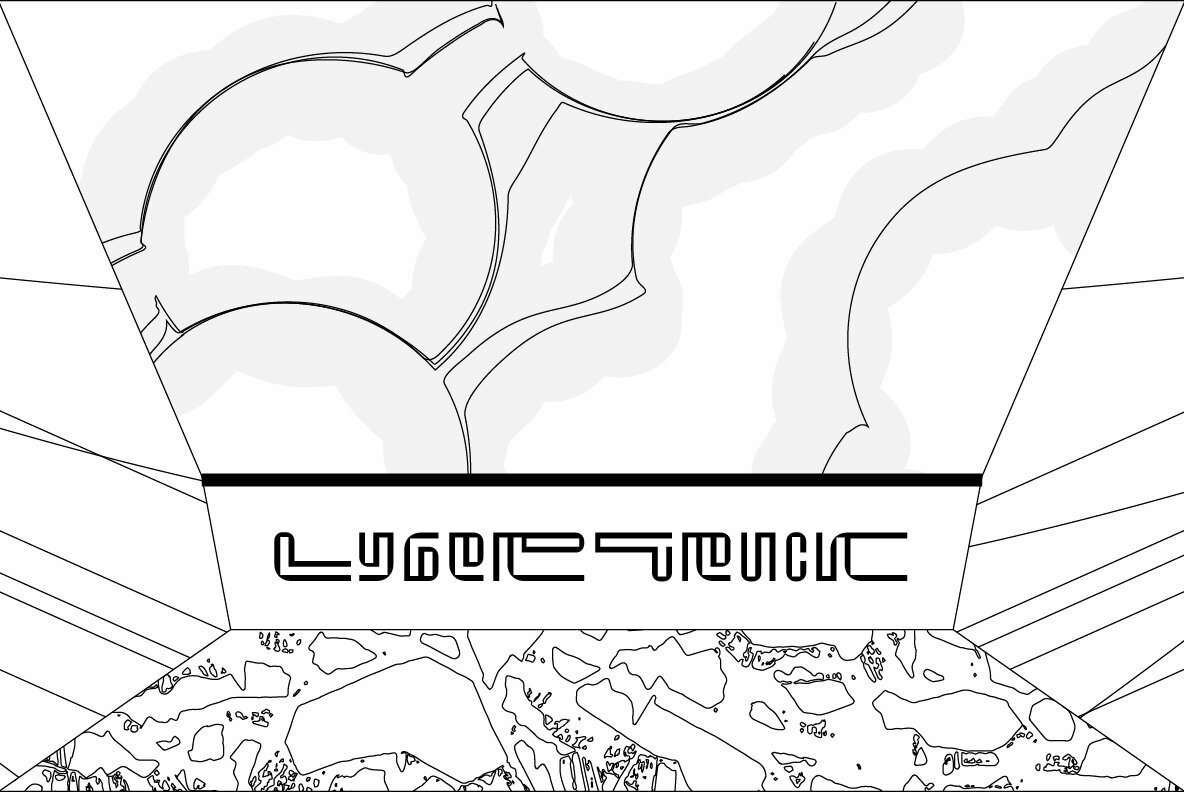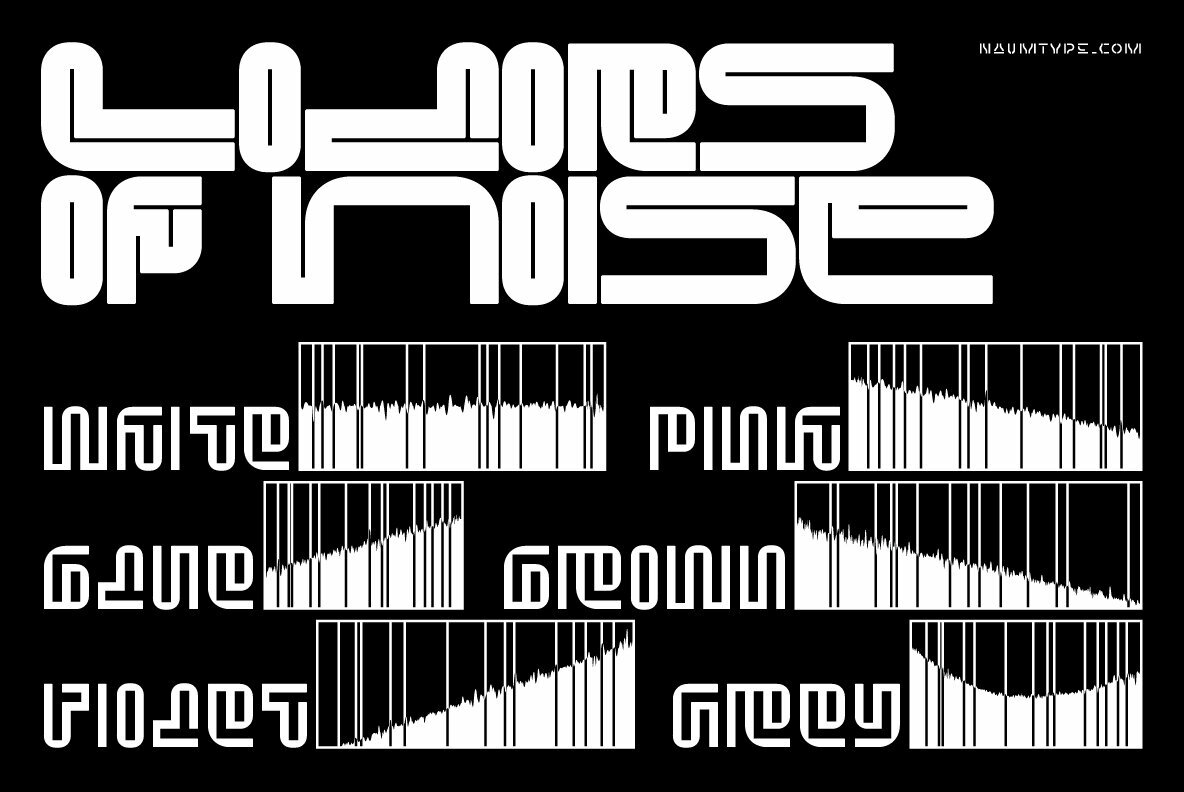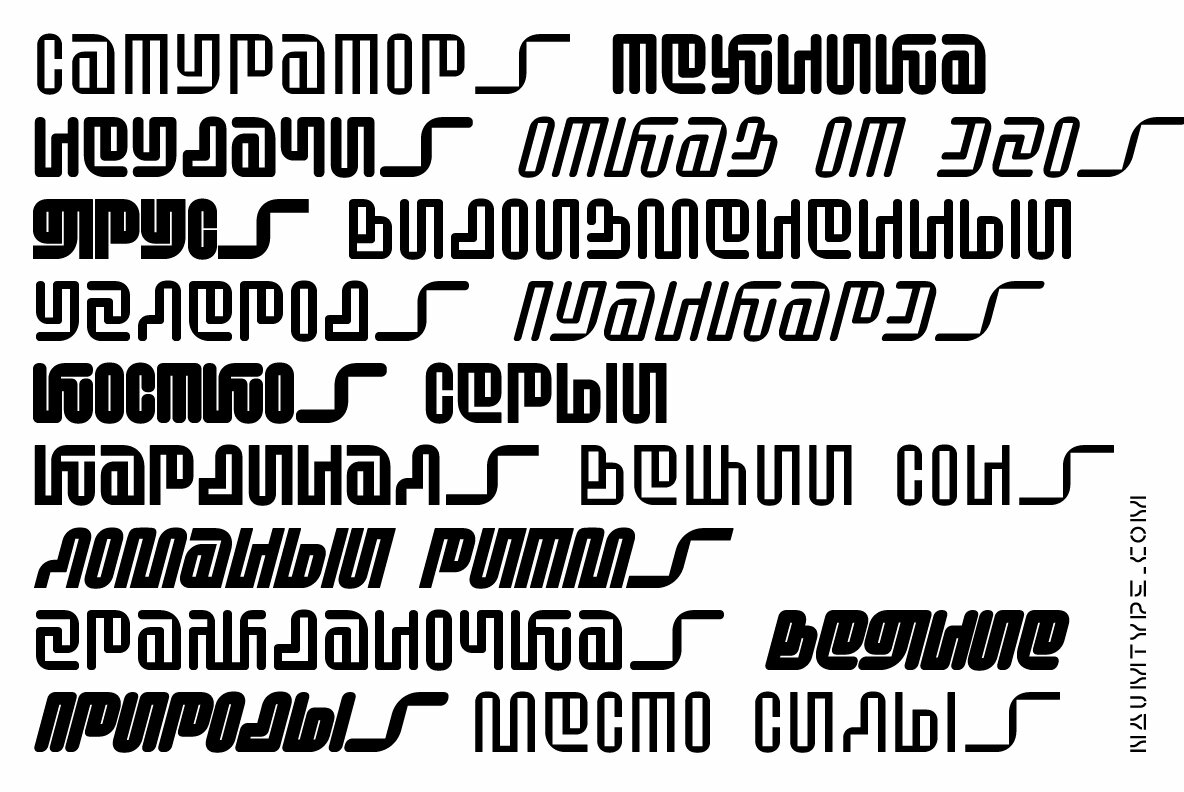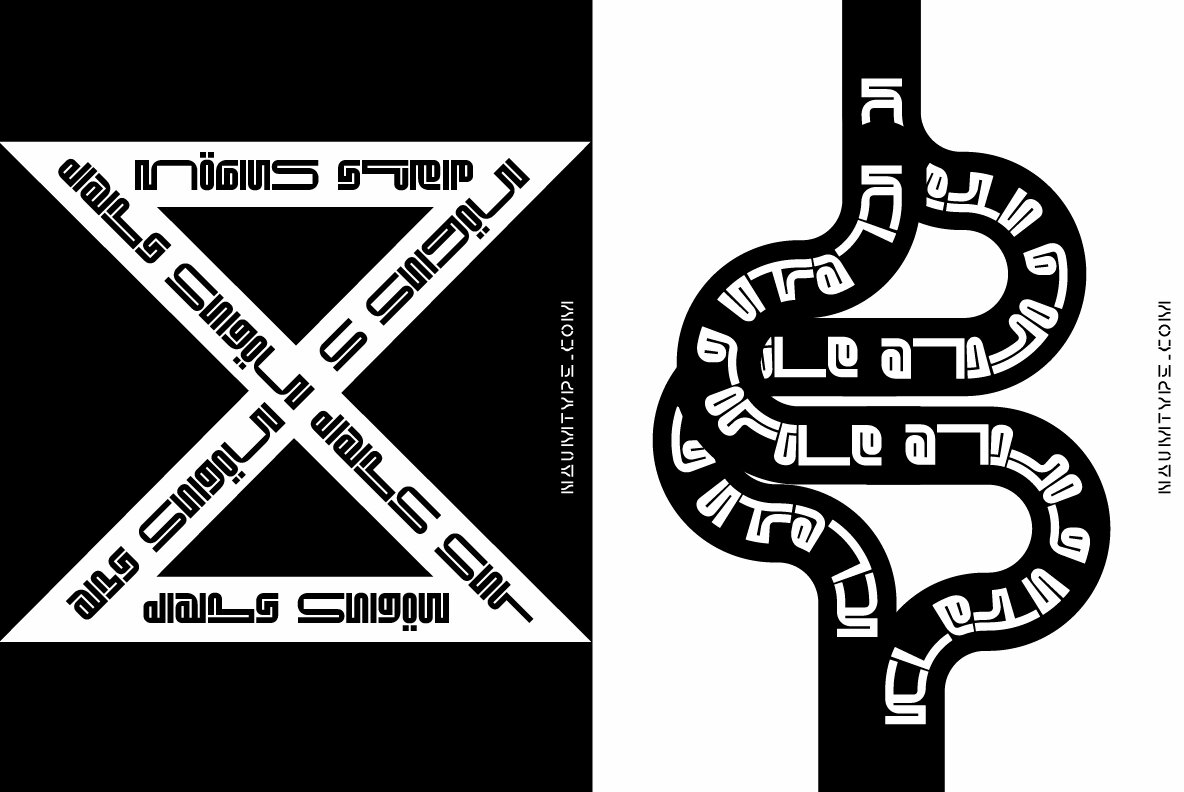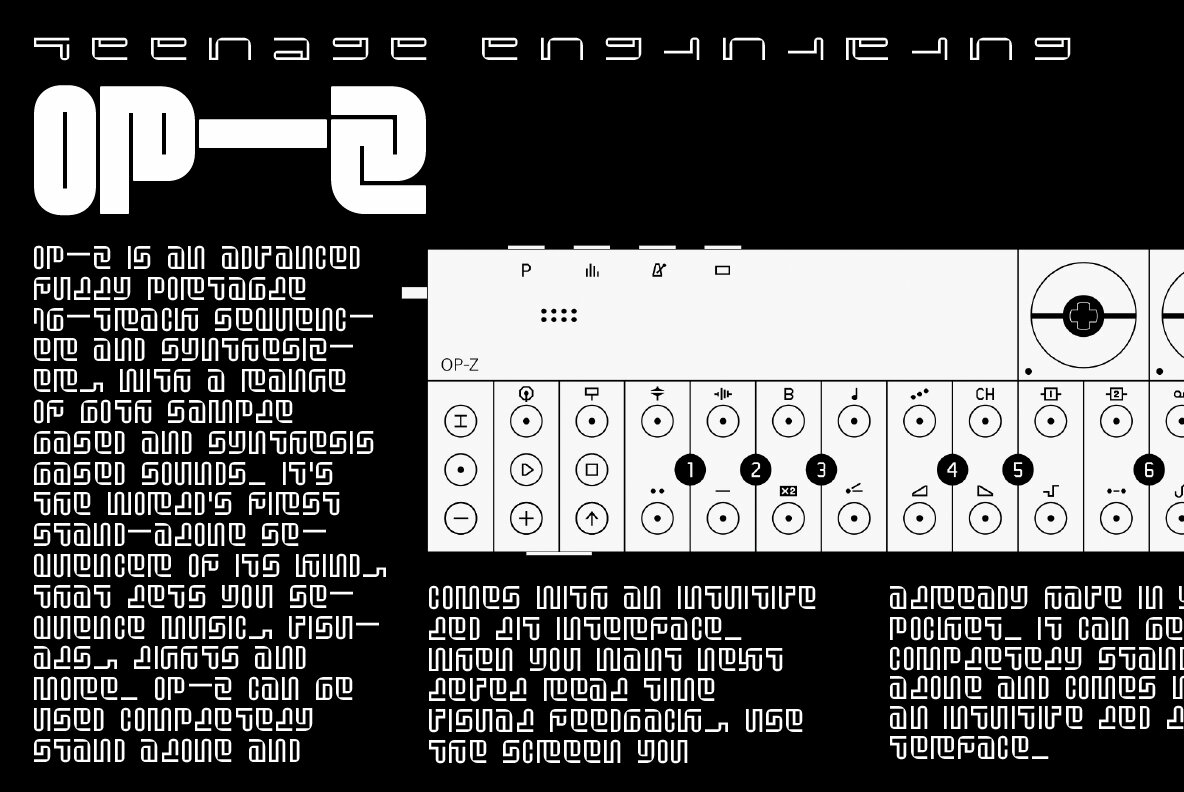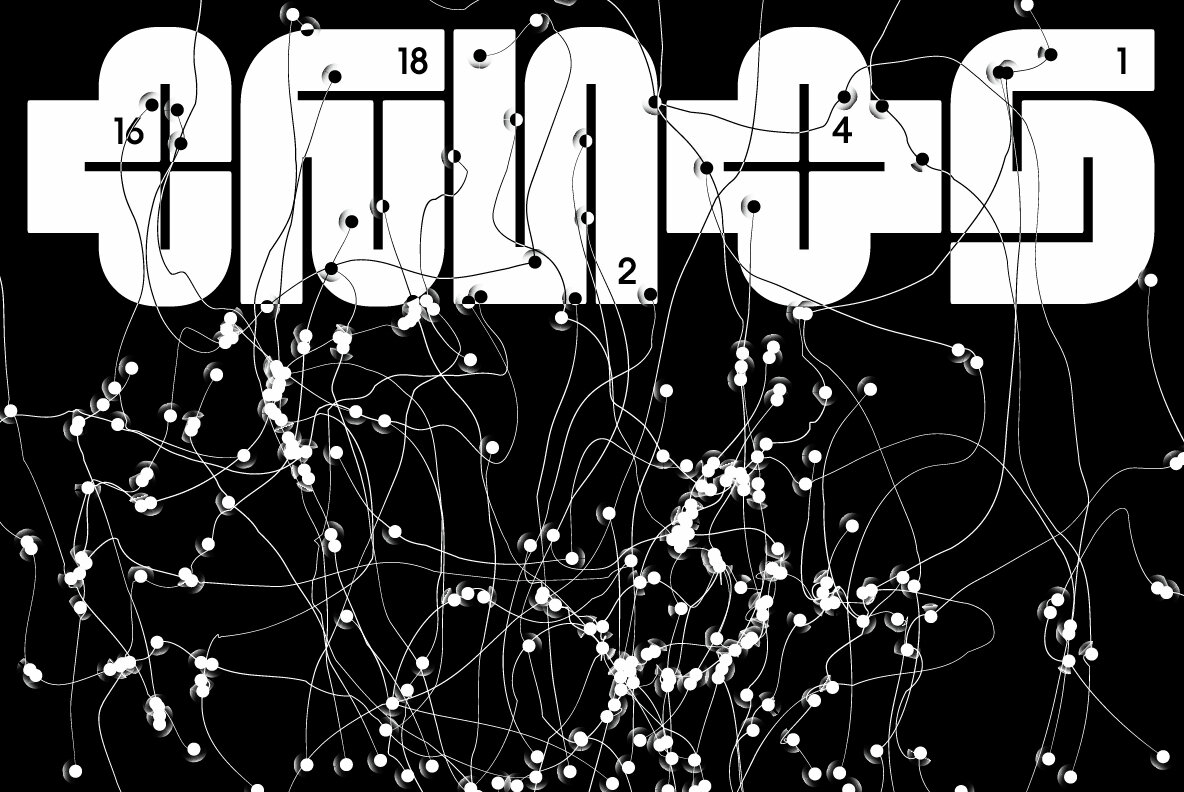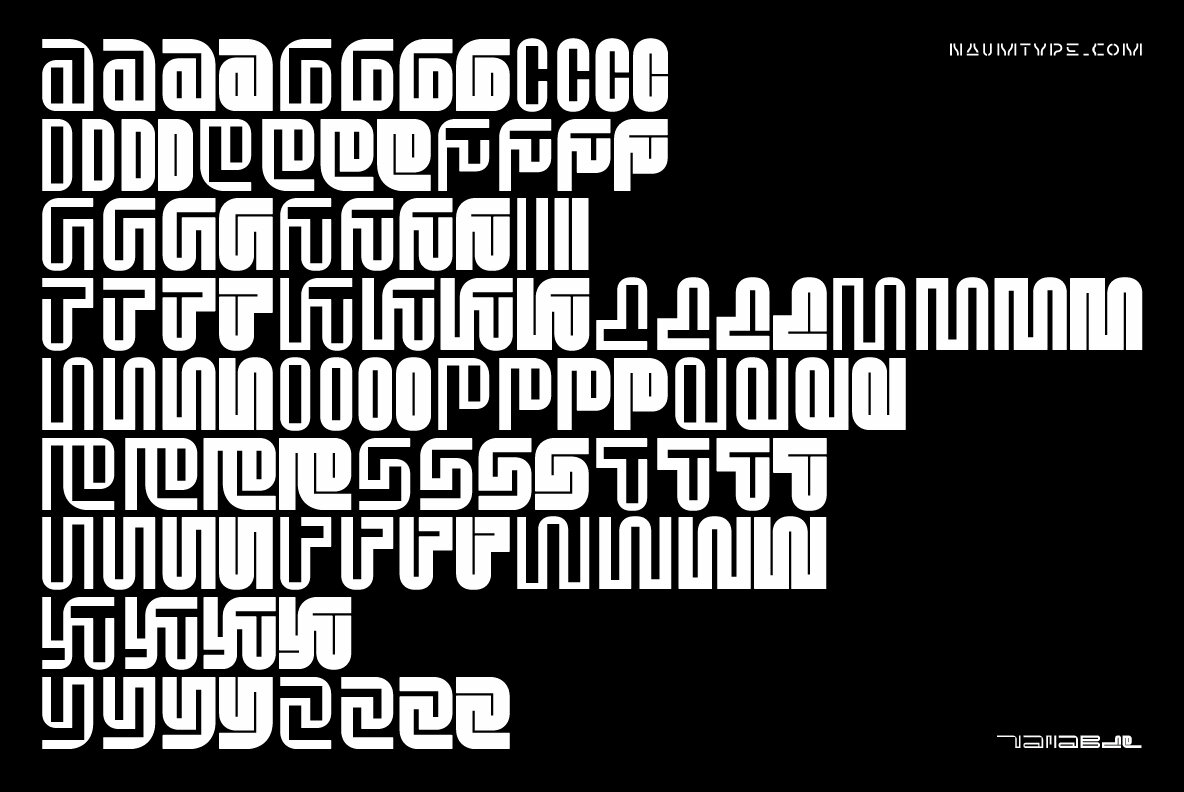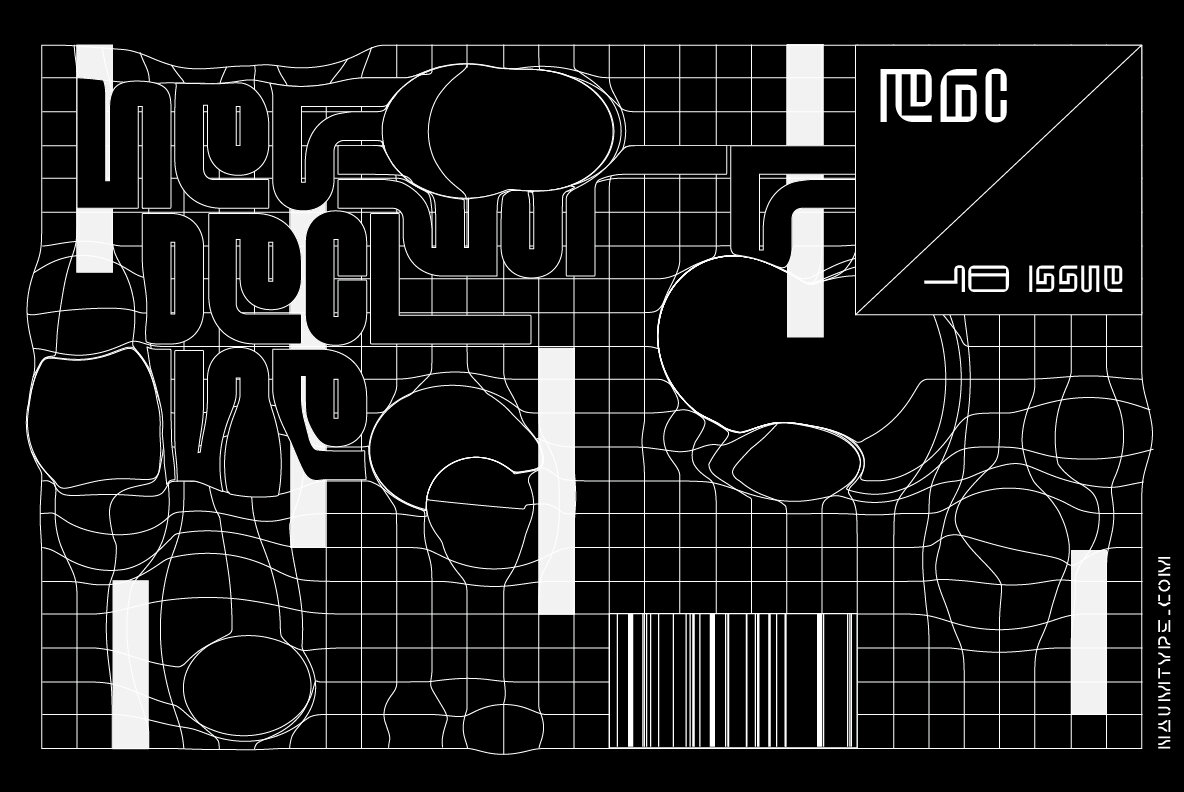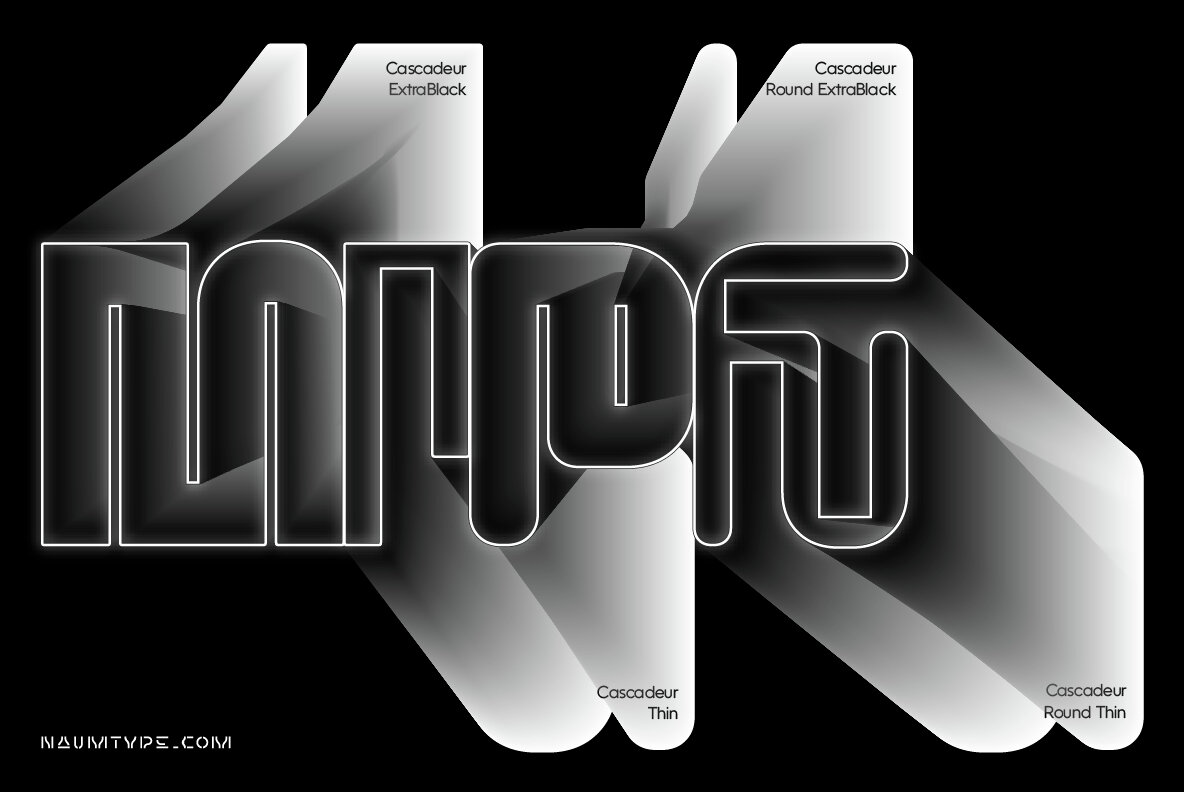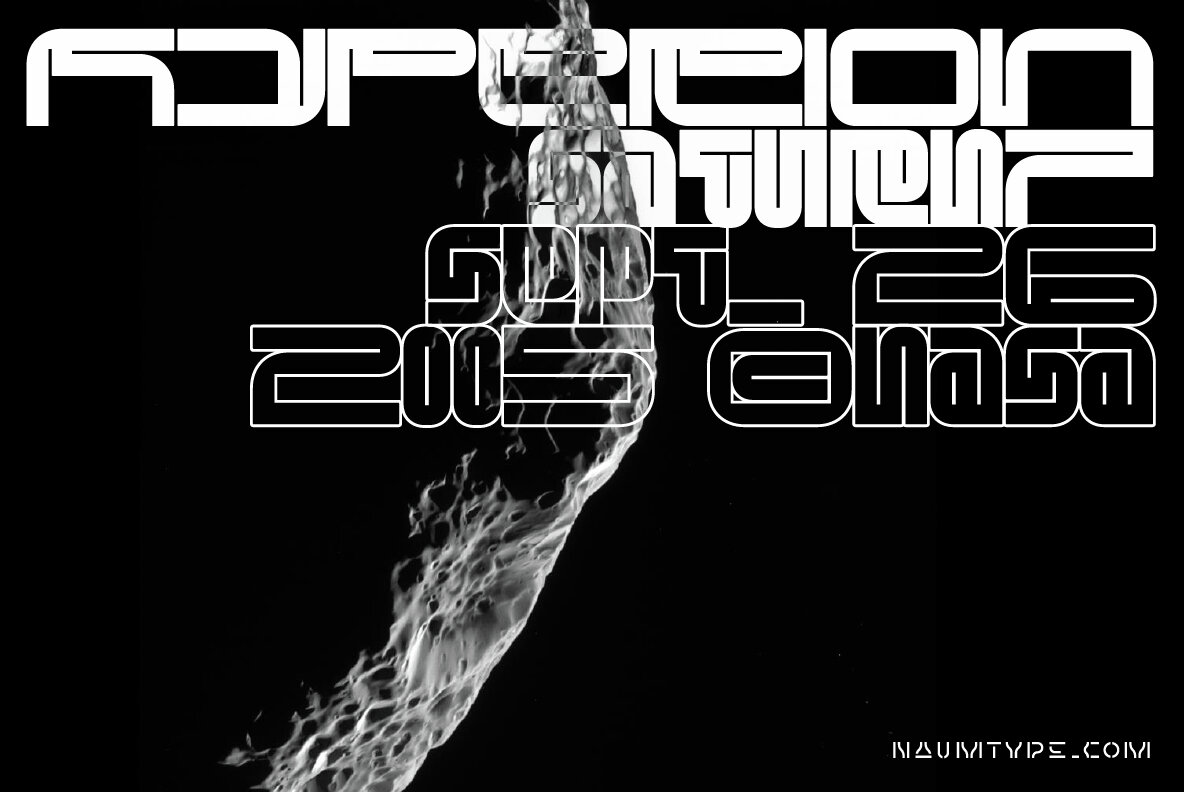
Cascadeur Variable Font
Cascadeur is a variable modular sans with 3 axes, a modernist homage to space-age typography. It was designed by Peter Bushuev and released in April of 2020.
Cascadeur was born from a type design study and went a long way to its final form. The main feature is a structure of the font: it based on 4 lines grid, has very tight spacing to achieve maximum space coverage and set of inventive letterforms.
It is also a variable font and has 3 axes: weight, slant, and roundness.
Cascadeur has alternates for almost every letter (2-4) so you can find a rhythm and a unique pattern for your design piece.
It is a perfect choice for posters, album covers, big headlines, oversize typography, identity and packaging, editorial design.